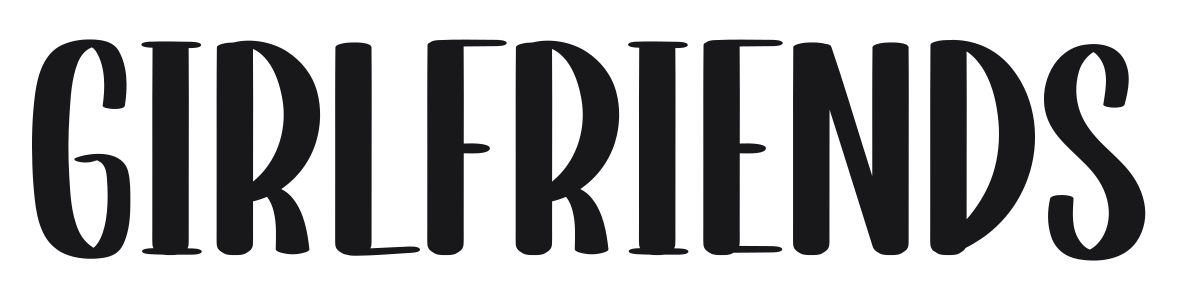
Girlfriends
Girlfriends is a condensed display font with tall, narrow proportions and a charming mix of letterform styles that give it a lively, hand-crafted rhythm. Moderate stroke contrast and subtle wedge serifs nod to vintage editorial and art deco influences without feeling stiff. It brings warmth and personality to headlines, branding, and packaging.